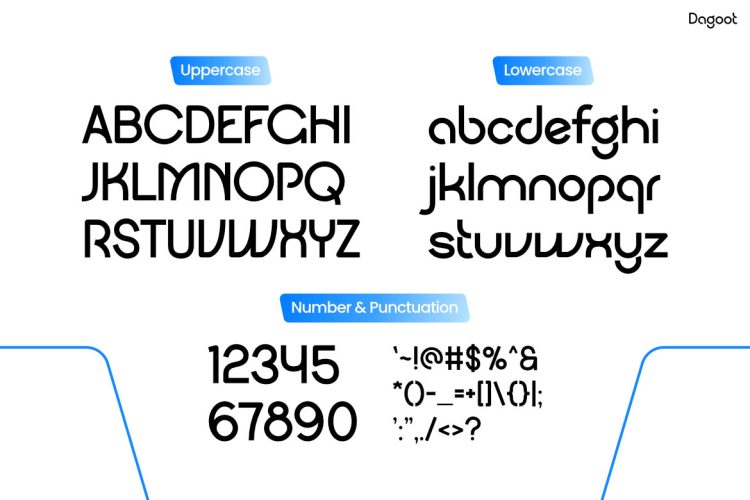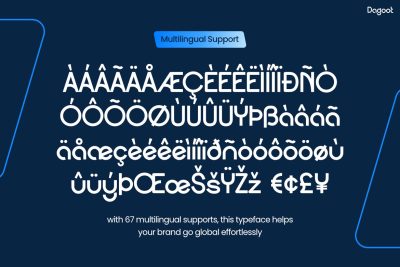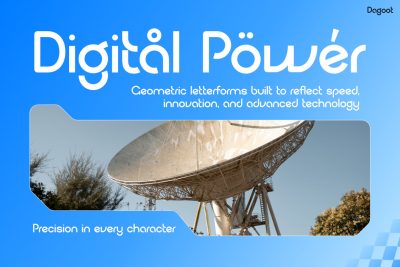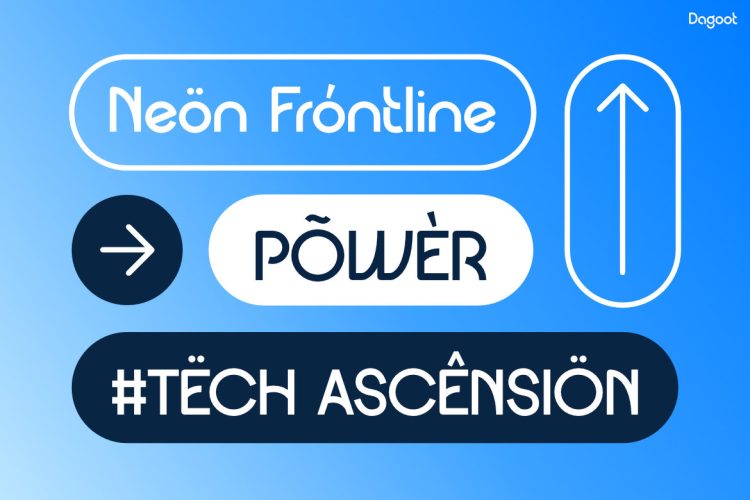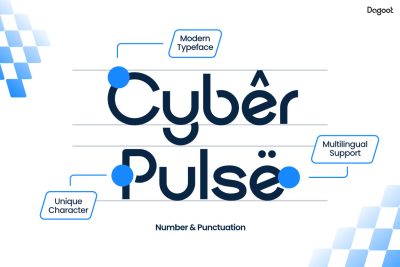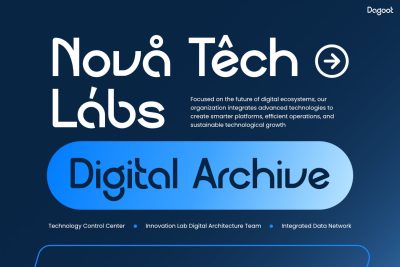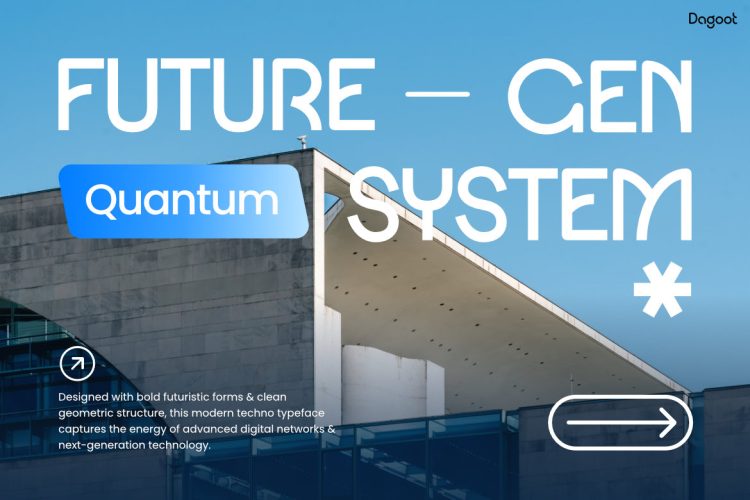
Dagoot โ€“ Futuristic Power in Modern Typography
Modern Font Dagoot is a bold futuristic display typeface designed to bring a clean and innovative feel to modern design projects. At first glance, its geometric letterforms and smooth curves create a strong visual impact. Moreover, the tech-inspired shapes give the font a futuristic personality that feels fresh and dynamic. As a result, headlines look powerful and visually striking. In addition, the balanced proportions keep every letter clear and structured. Because of this, the font works well for both creative and professional layouts. Even better, Modern Font Dagoot supports 67 languages, so designers can easily create global projects with consistent typography.
Modern Font Dagoot blends modern geometry with futuristic styling to create a distinctive display typeface. Each letterform is carefully crafted with smooth curves and clean edges. Therefore, the font delivers a sleek digital aesthetic that feels modern and polished. At the same time, the rounded shapes add character while keeping the typography easy to read.
Furthermore, Modern Font Dagoot works perfectly for projects that need a strong modern identity. For example, it performs beautifully in tech branding, futuristic posters, gaming graphics, and creative editorial layouts. In addition, the bold structure makes it ideal for large headlines and powerful typography compositions. Because of this versatility, designers can use it across both digital and print designs.
Modern Font Dagoot is ideal for graphic designers, branding studios, digital creators, and technology startups. In particular, it works well for tech branding, gaming titles, futuristic posters, modern logos, website headers, app interfaces, and social media graphics. As a result, projects instantly gain a more innovative and high-tech visual style.
Modern Font Dagoot is a futuristic display font with clean geometric shapes and a bold digital style. Perfect for tech branding, gaming graphics, modern logos, and powerful headlines.